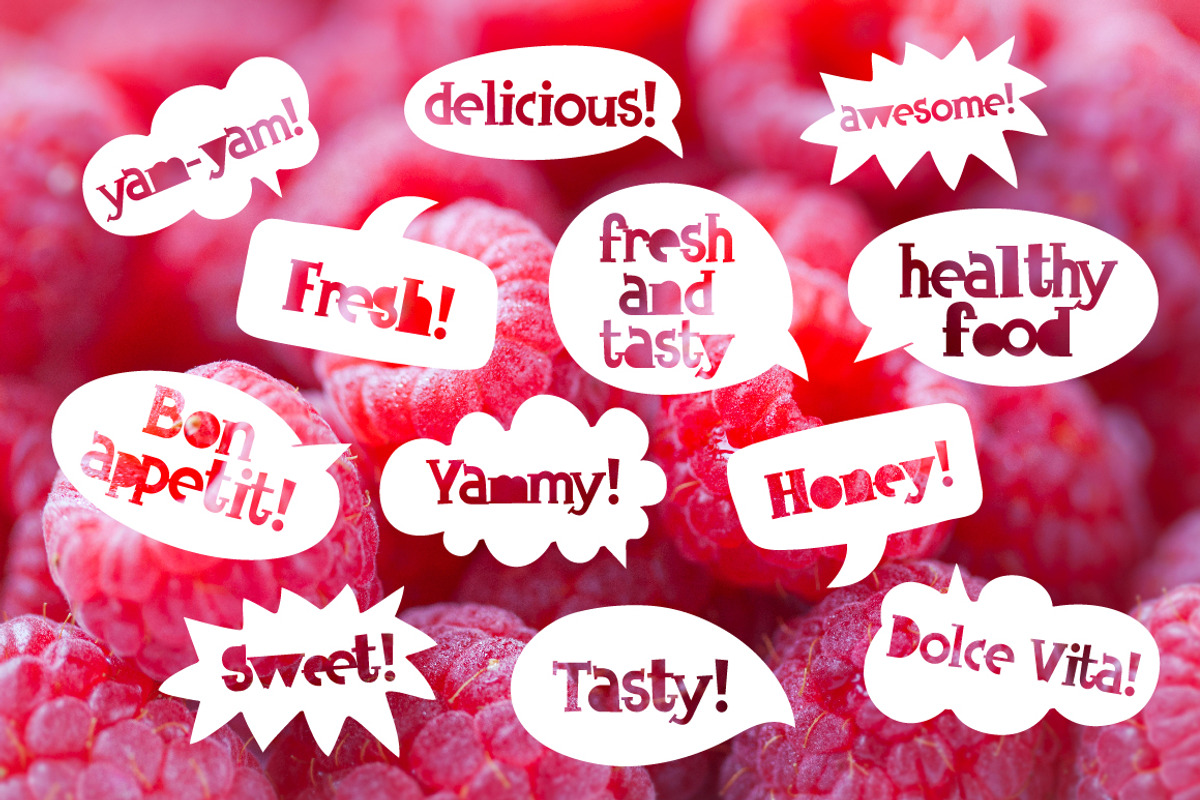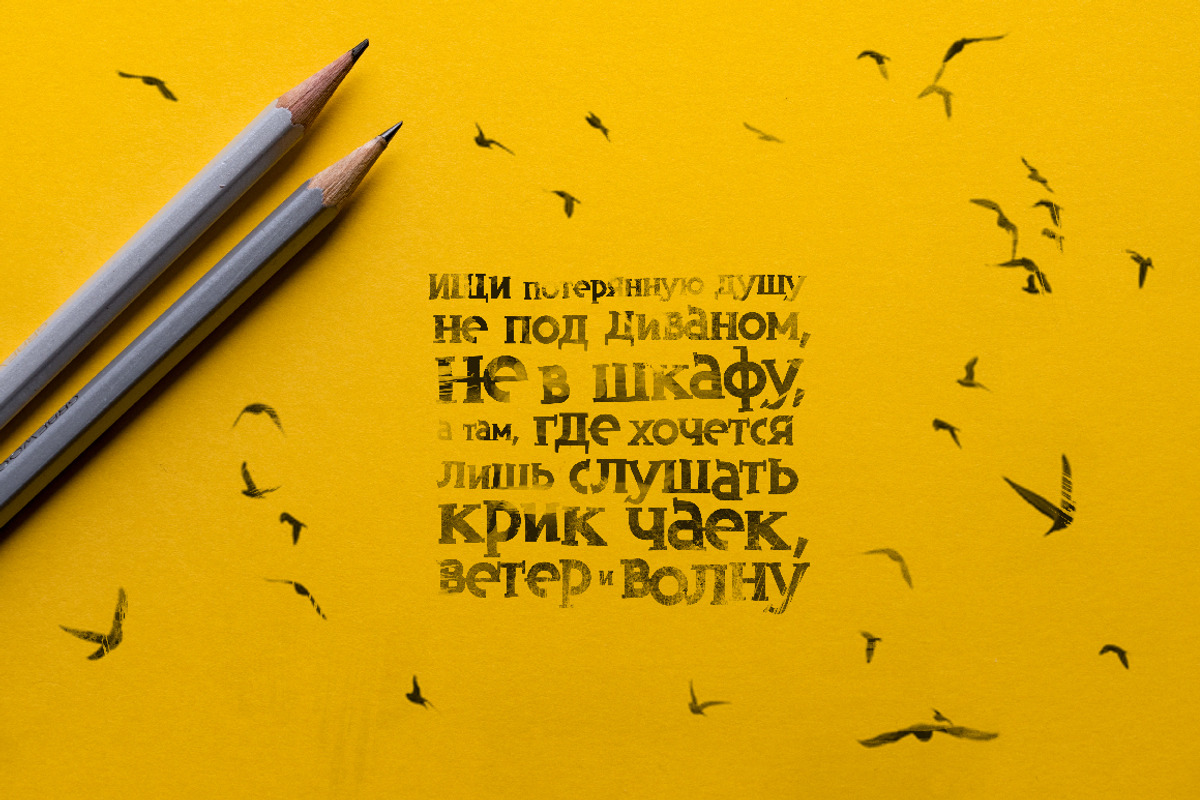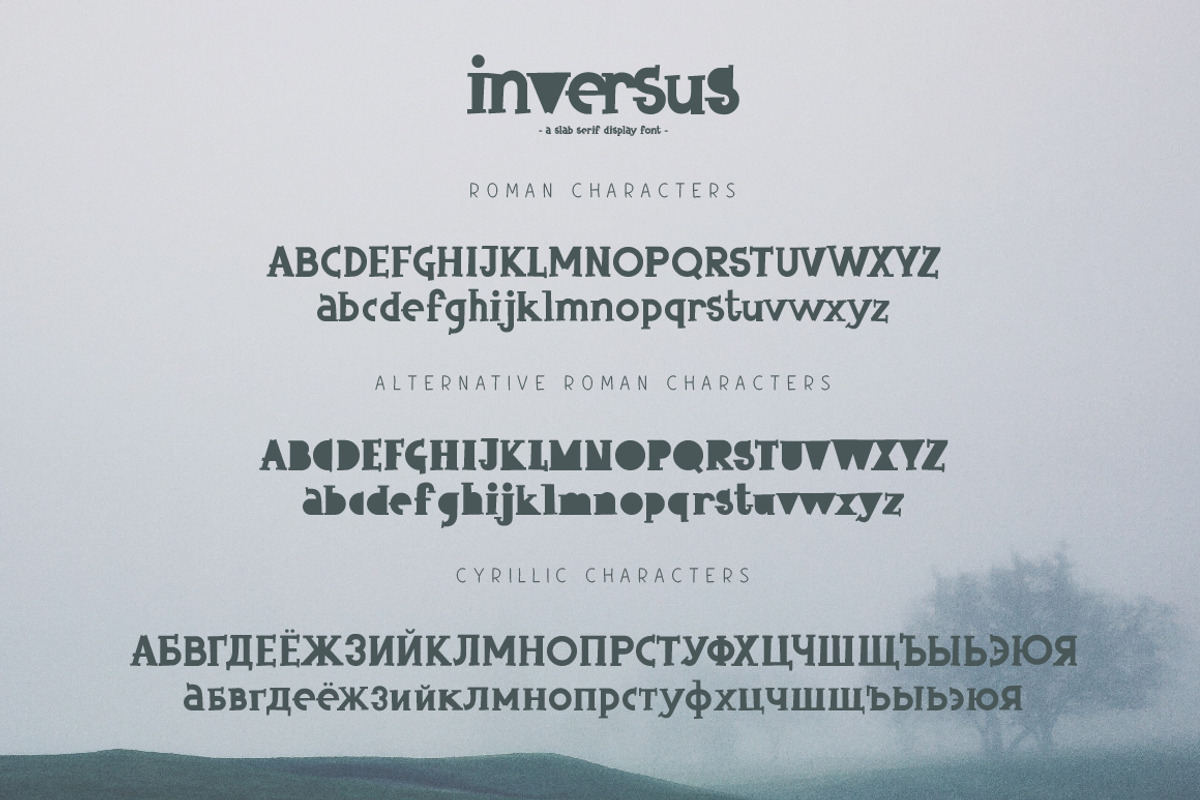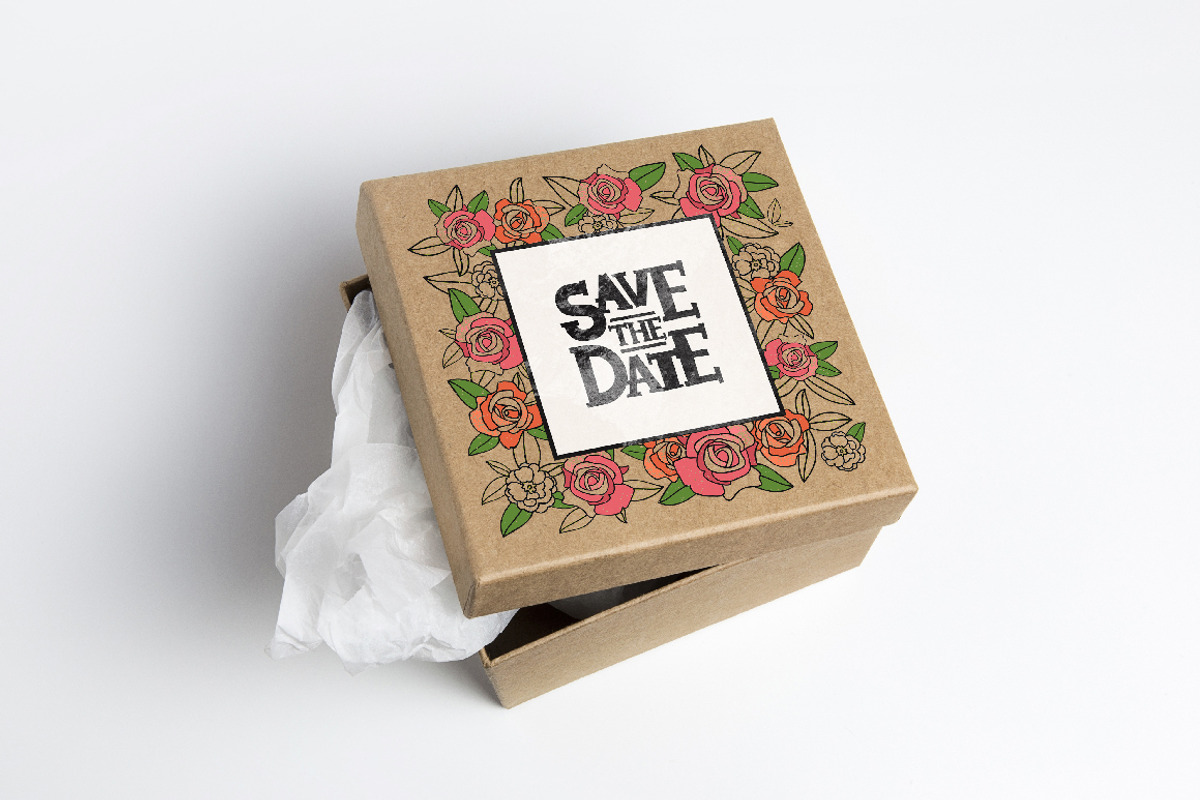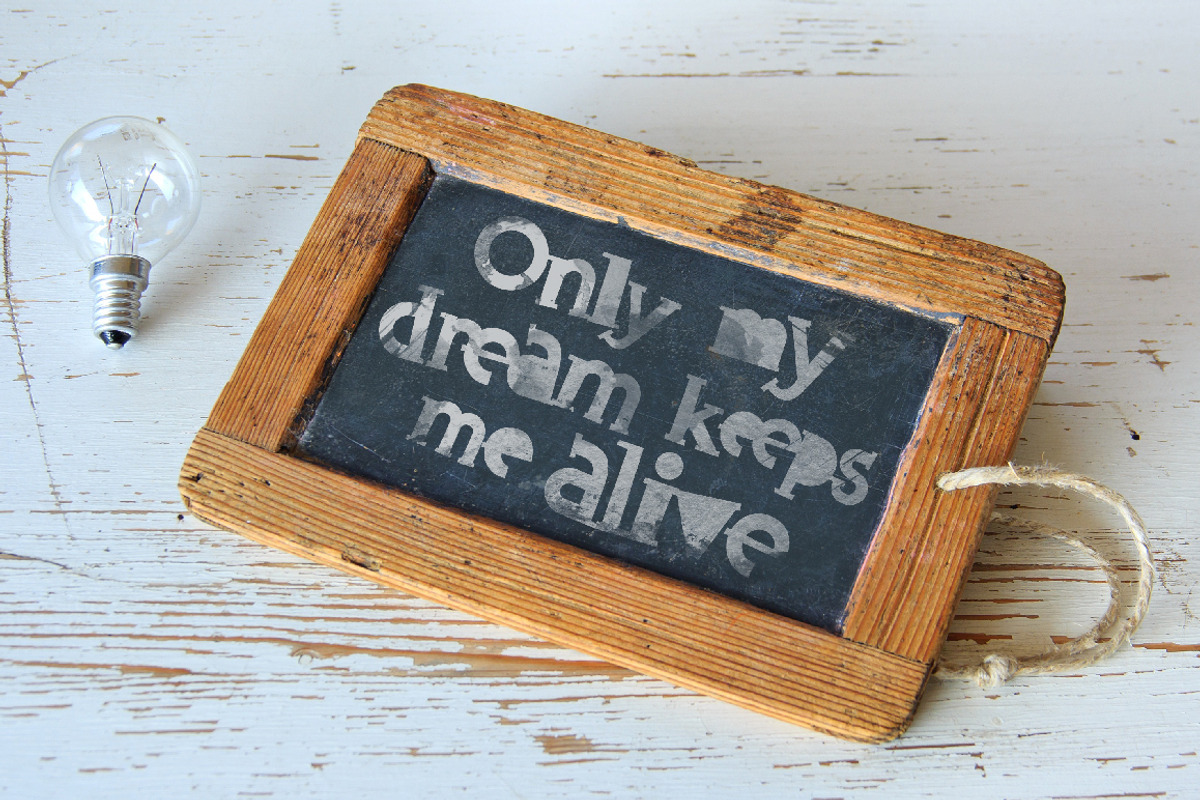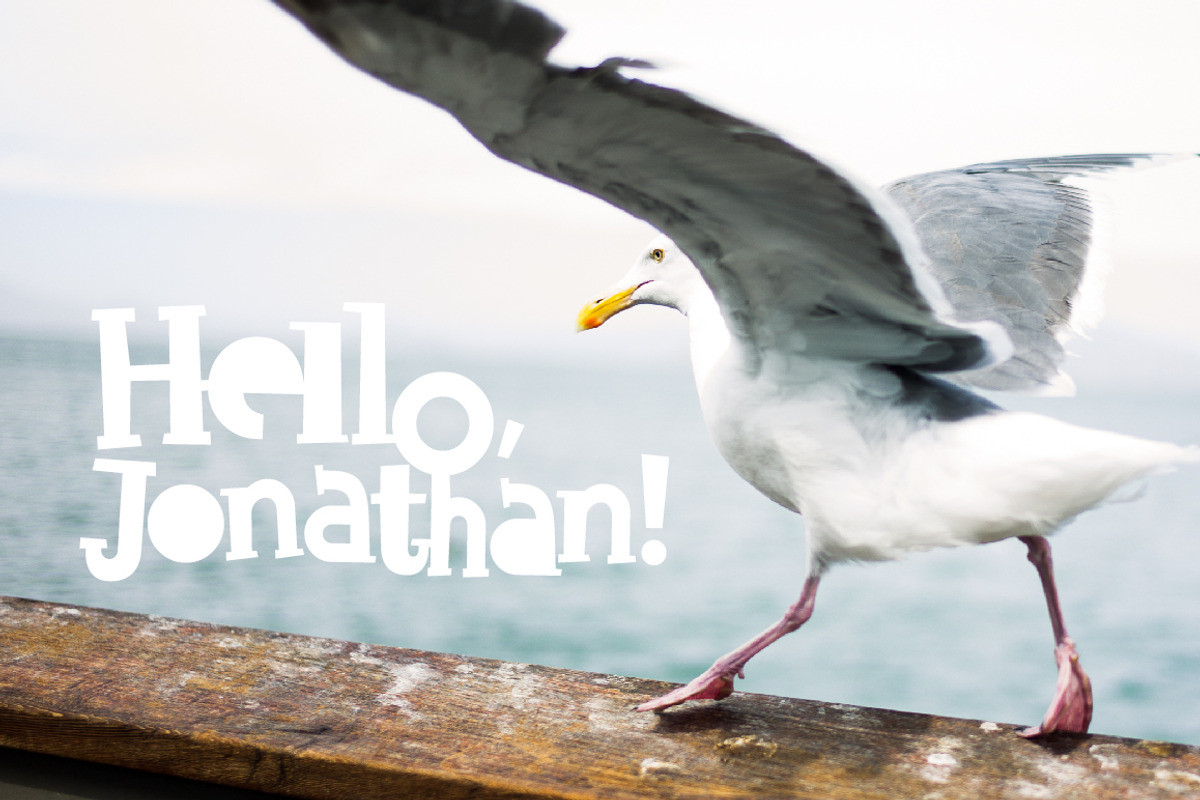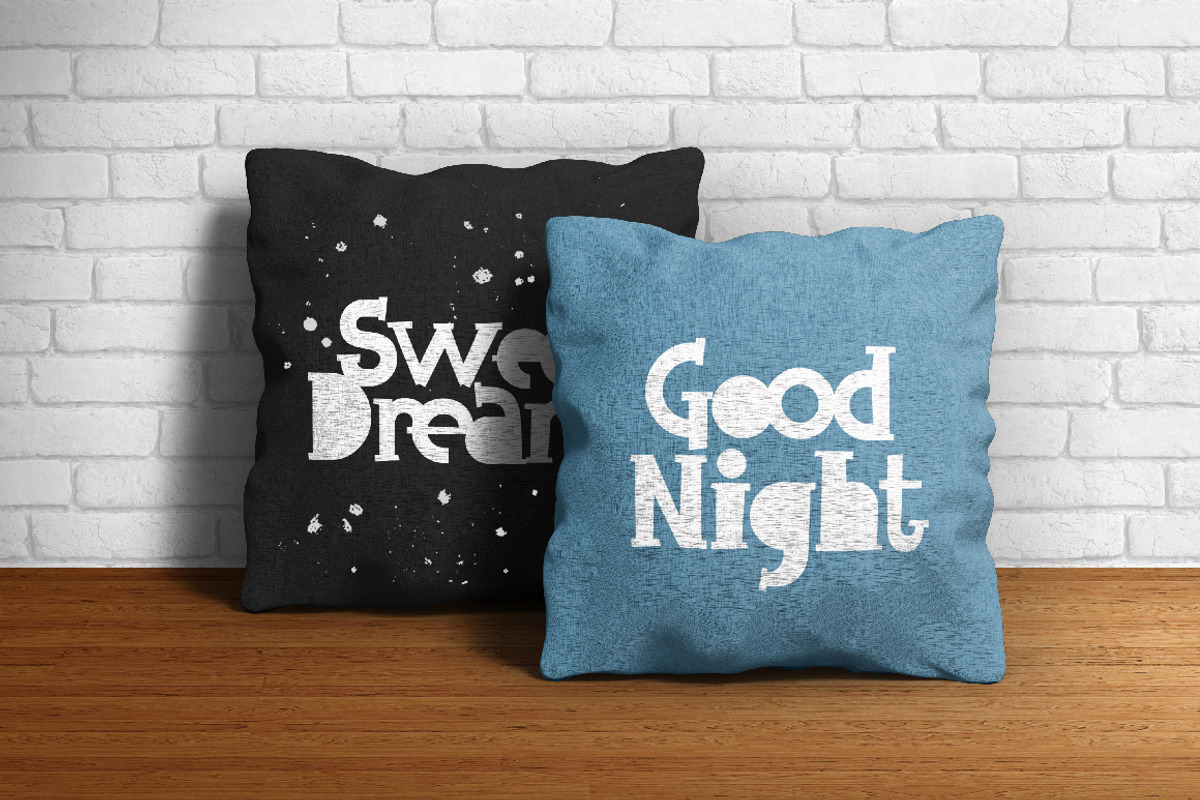
Inversus - a slab serif display font
Inversus - a slab serif display font by chekart is a font selected for branding, posters, packaging, typography.
- Inversus contains a full set of lower & uppercase letters, alternate letters, a large range of punctuation, numerals, ligatures, cyrillic ch
Why Inversus - a slab serif display font is worth a look
Inversus - a slab serif display font by chekart fits naturally into Branding, posters, packaging, typography.